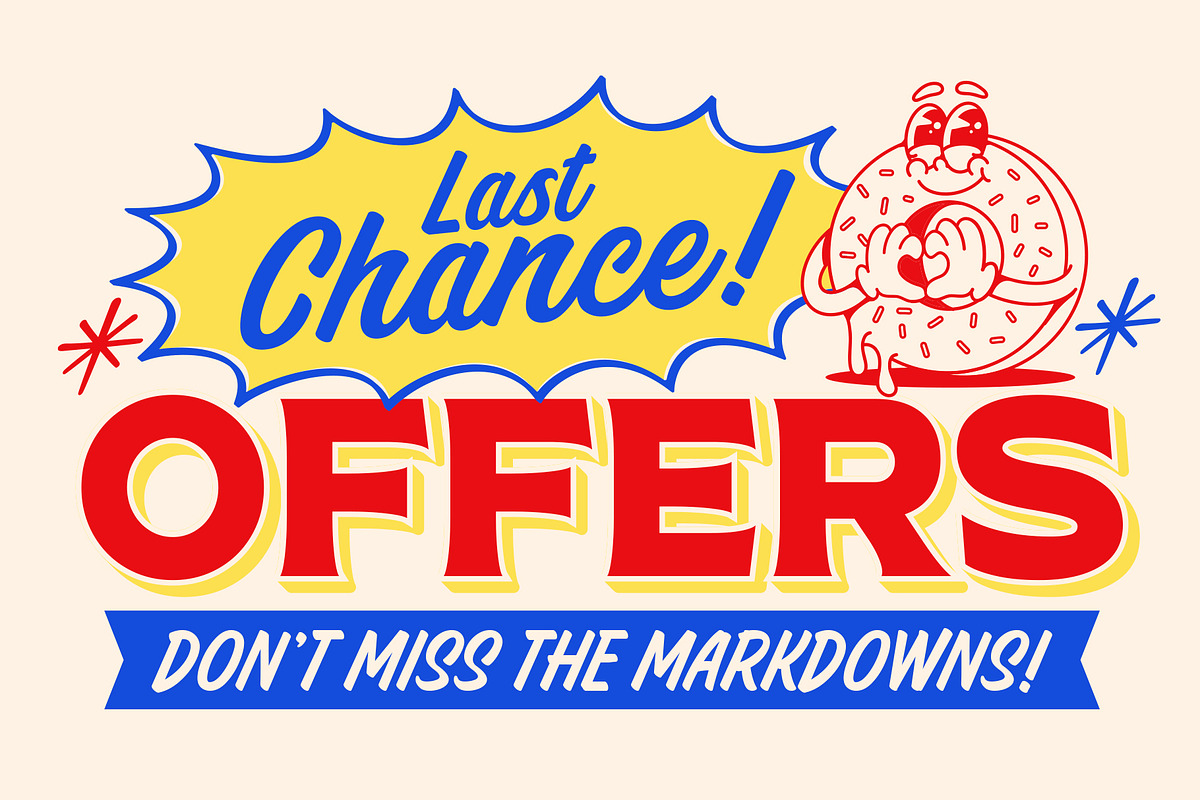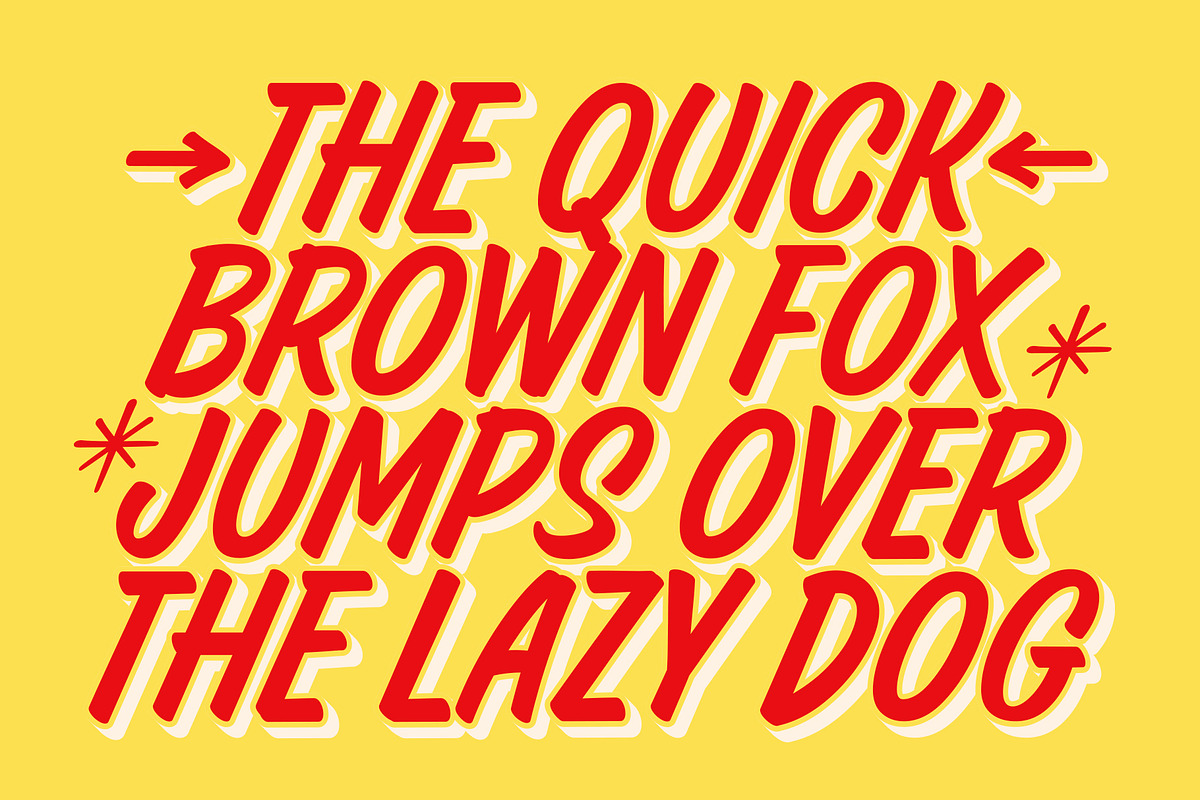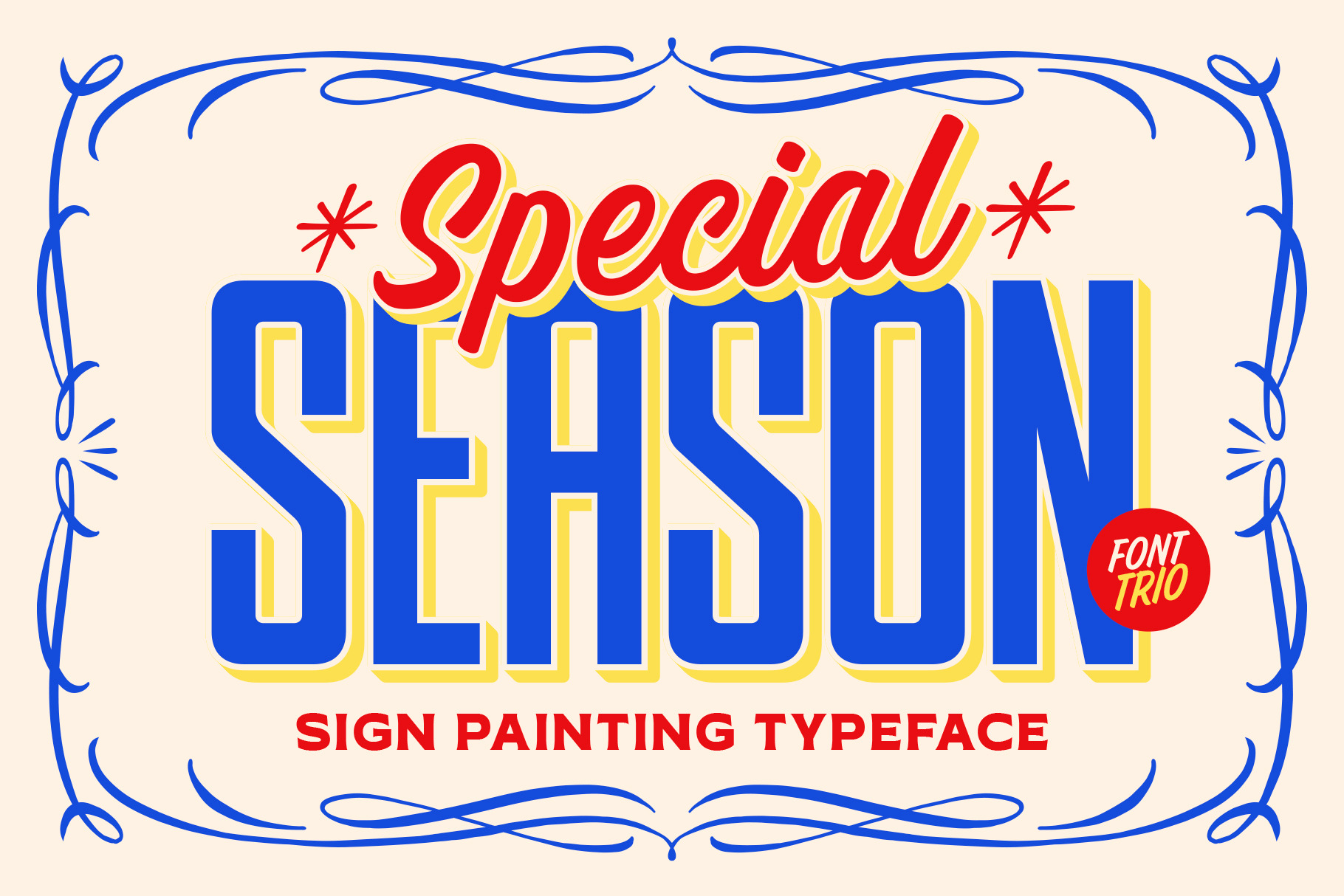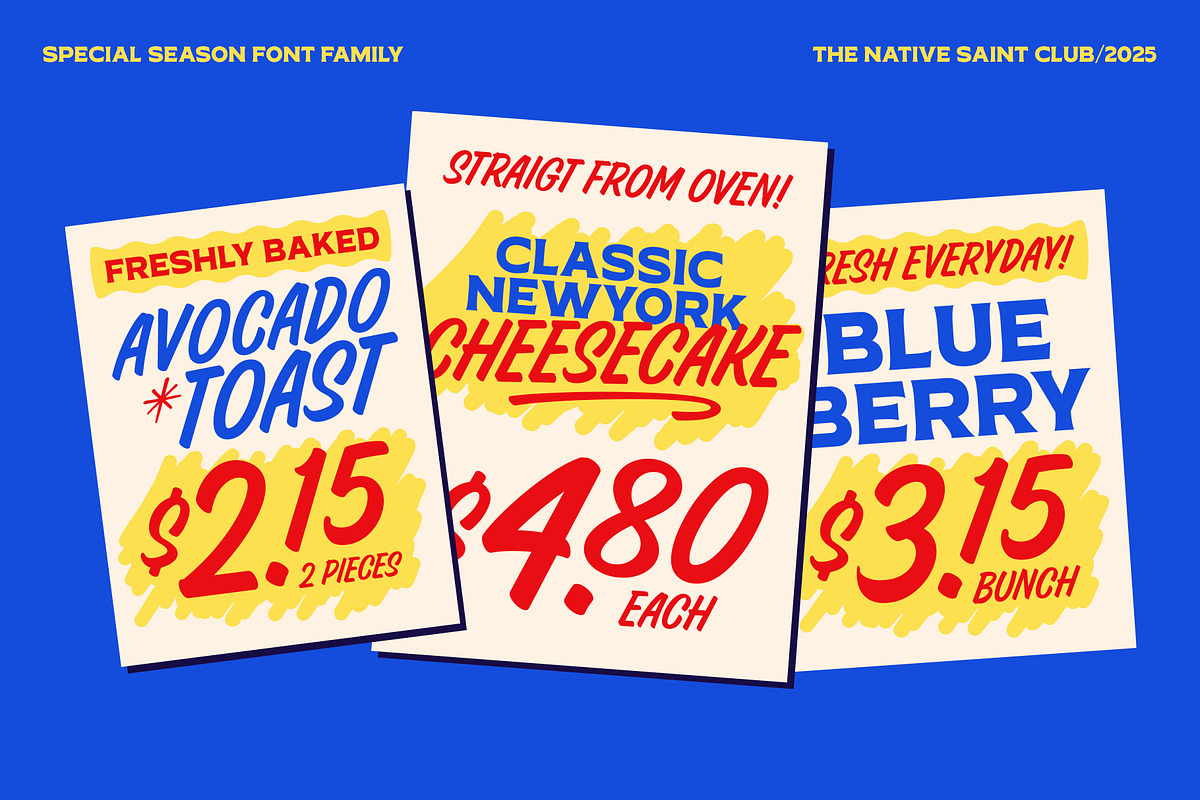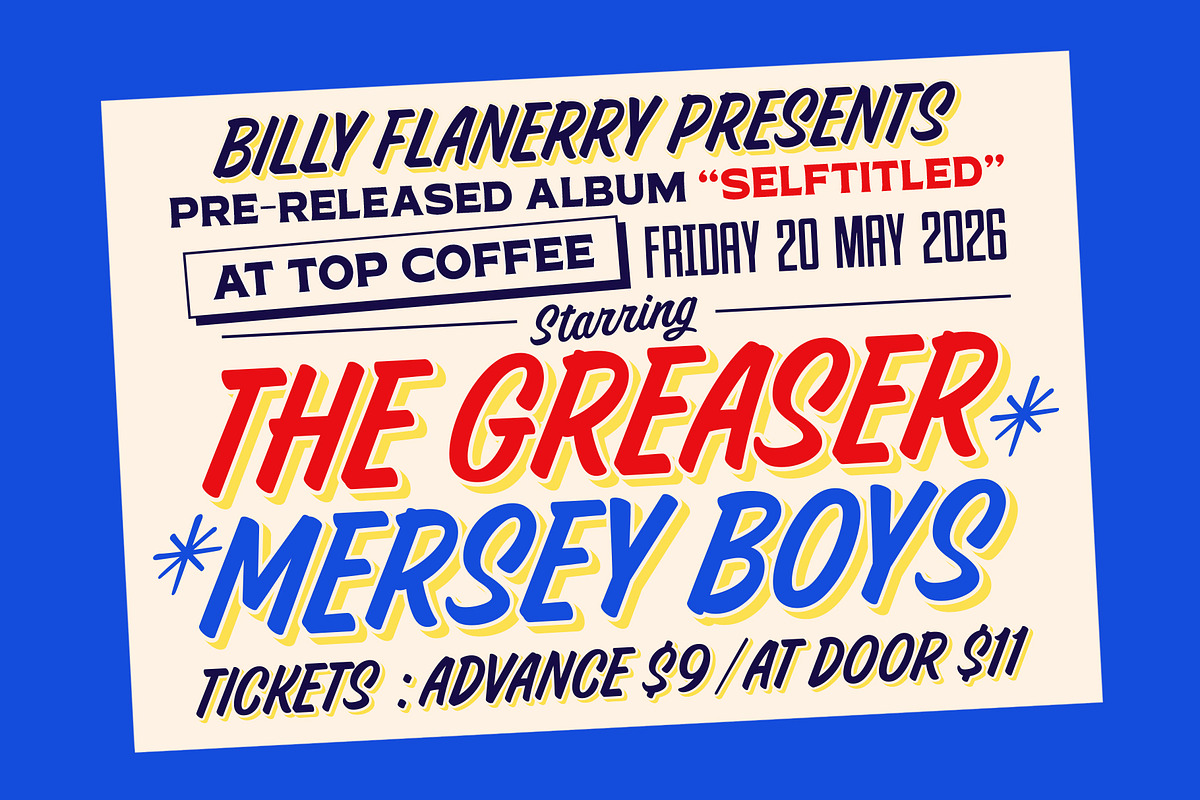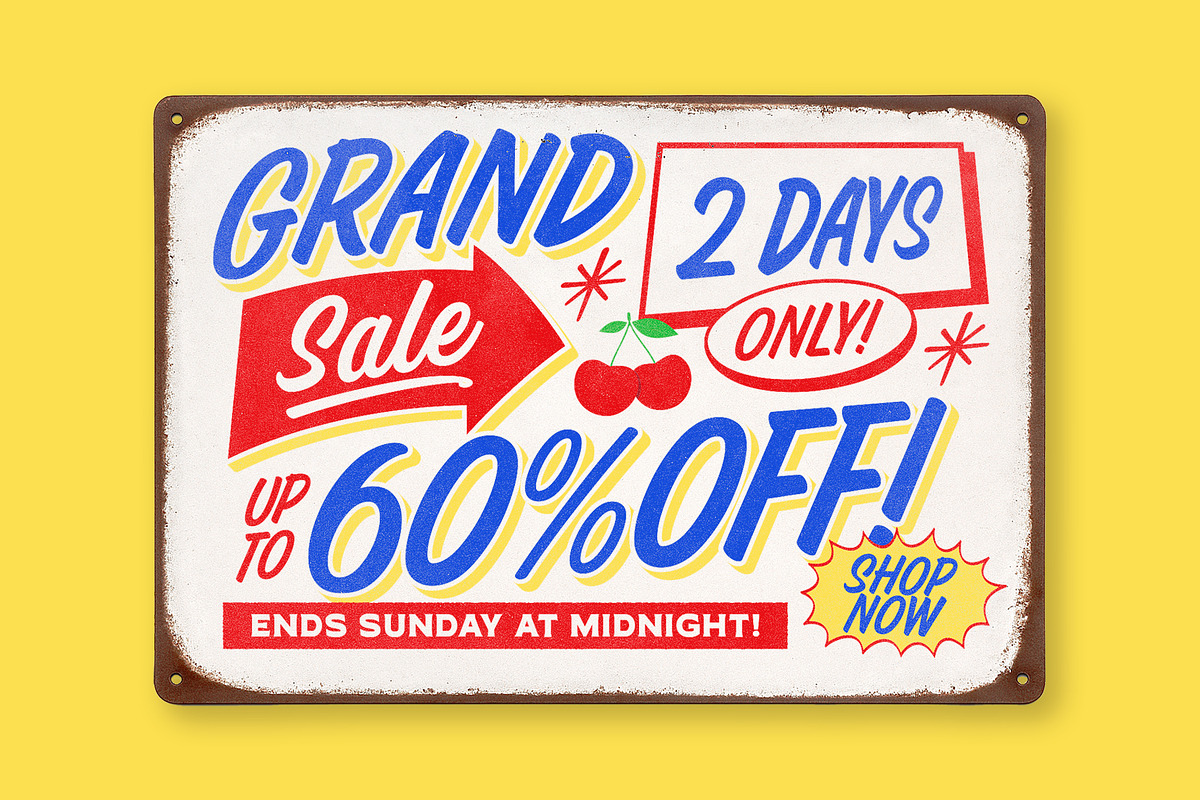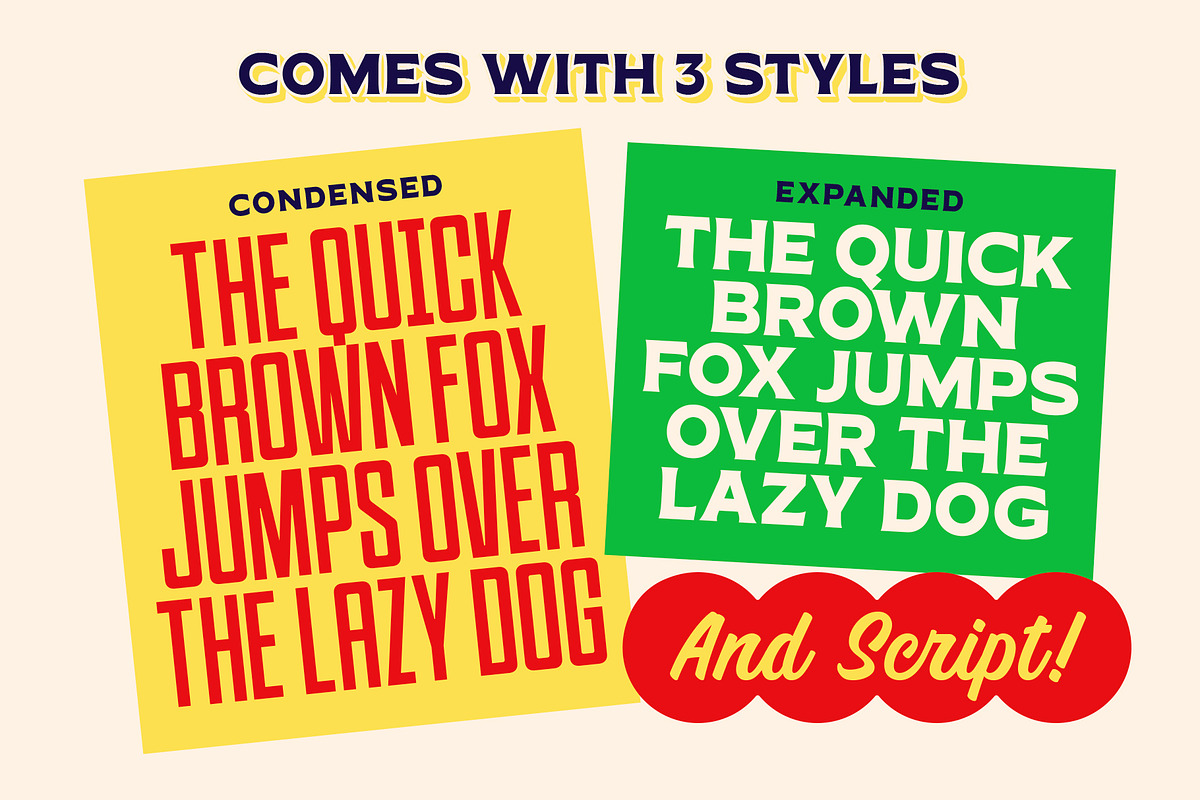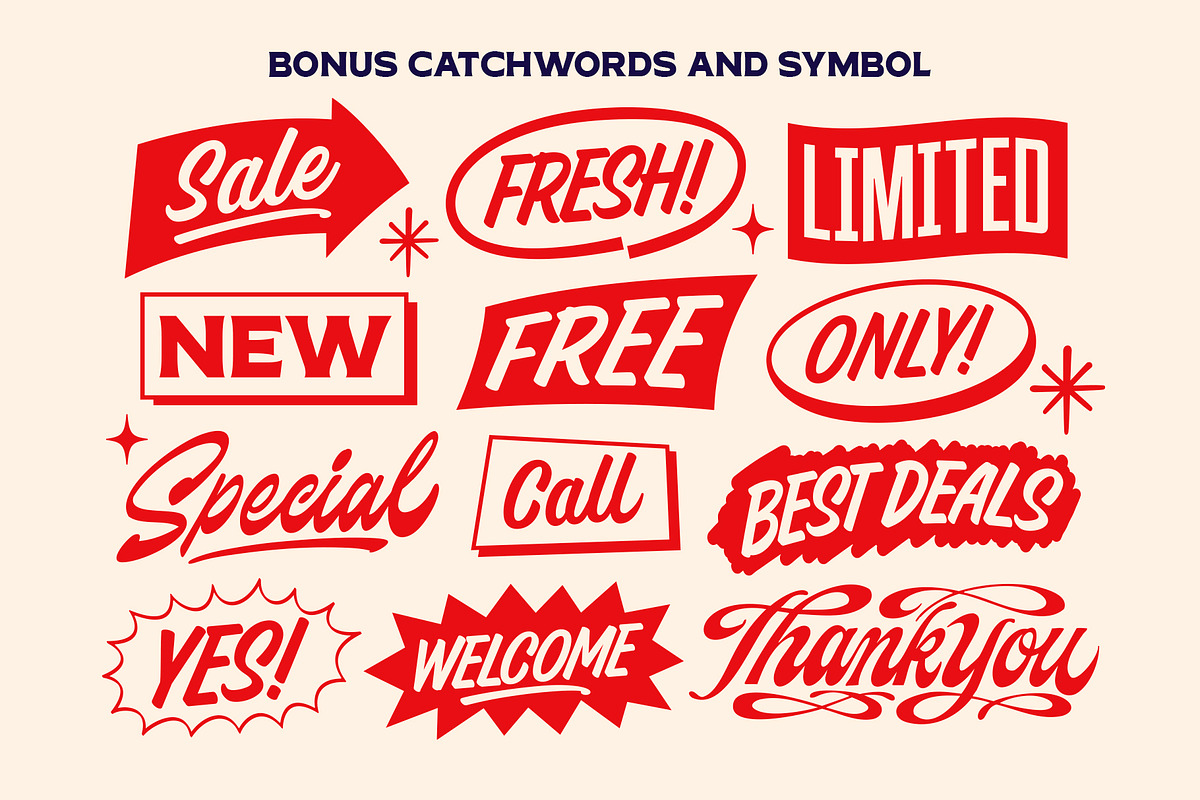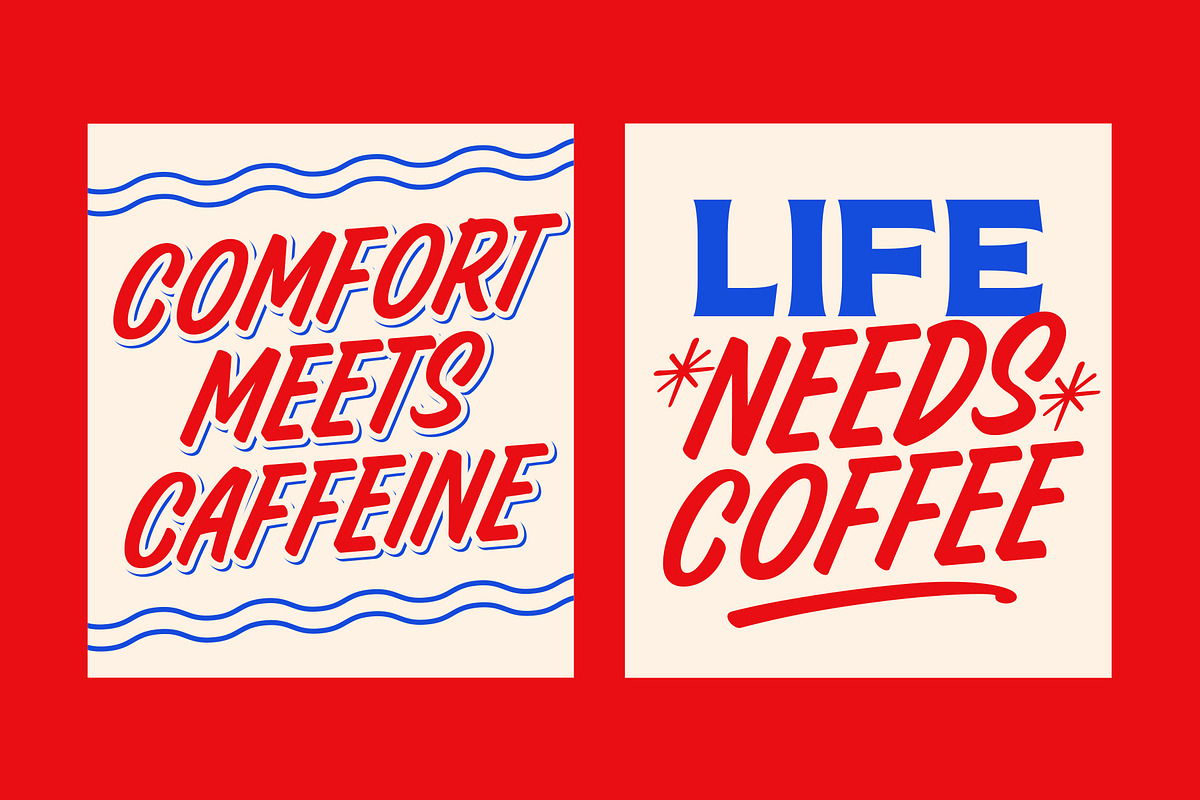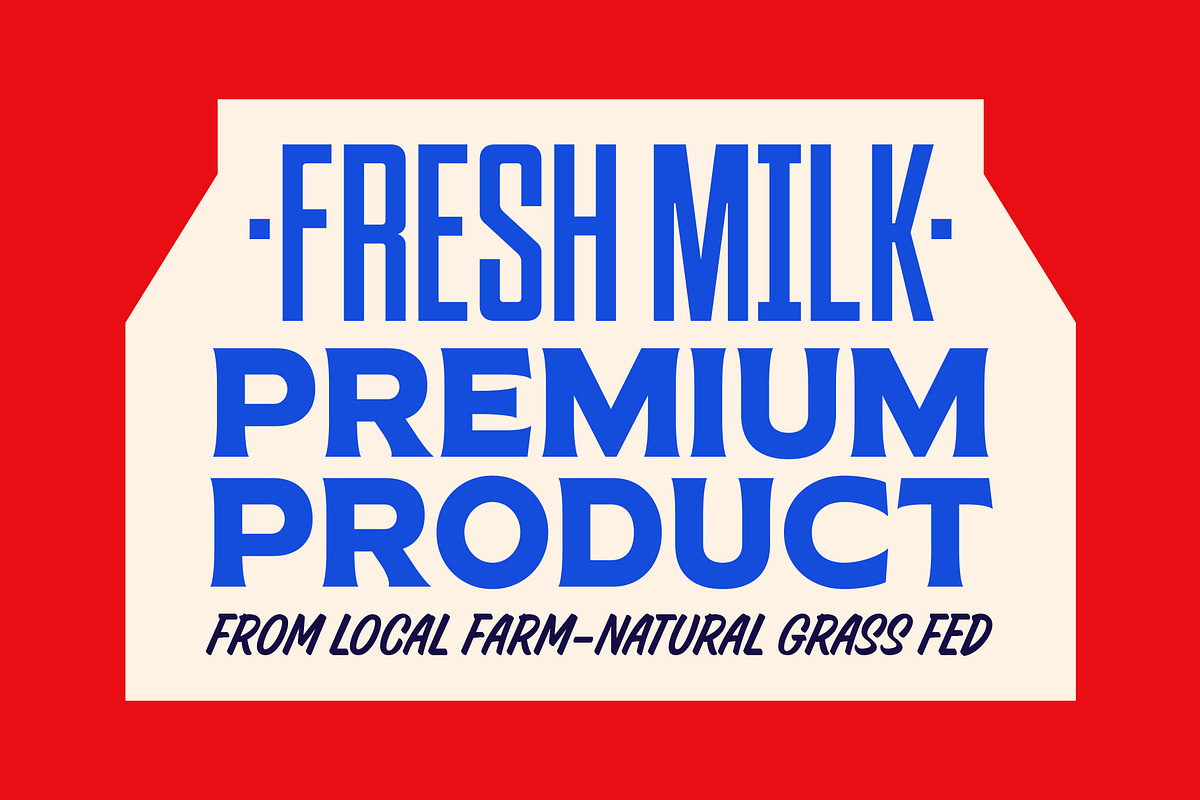
TNSC Special Season - Font Trio
TNSC Special Season is a versatile FONT TRIO inspired by classic sign painting, featuring Brush, Sans Serif, and Serif styles. Plus catchwords and symbols to elevate your designs. It’s perfect for branding, packaging, advertising, and printed materials.